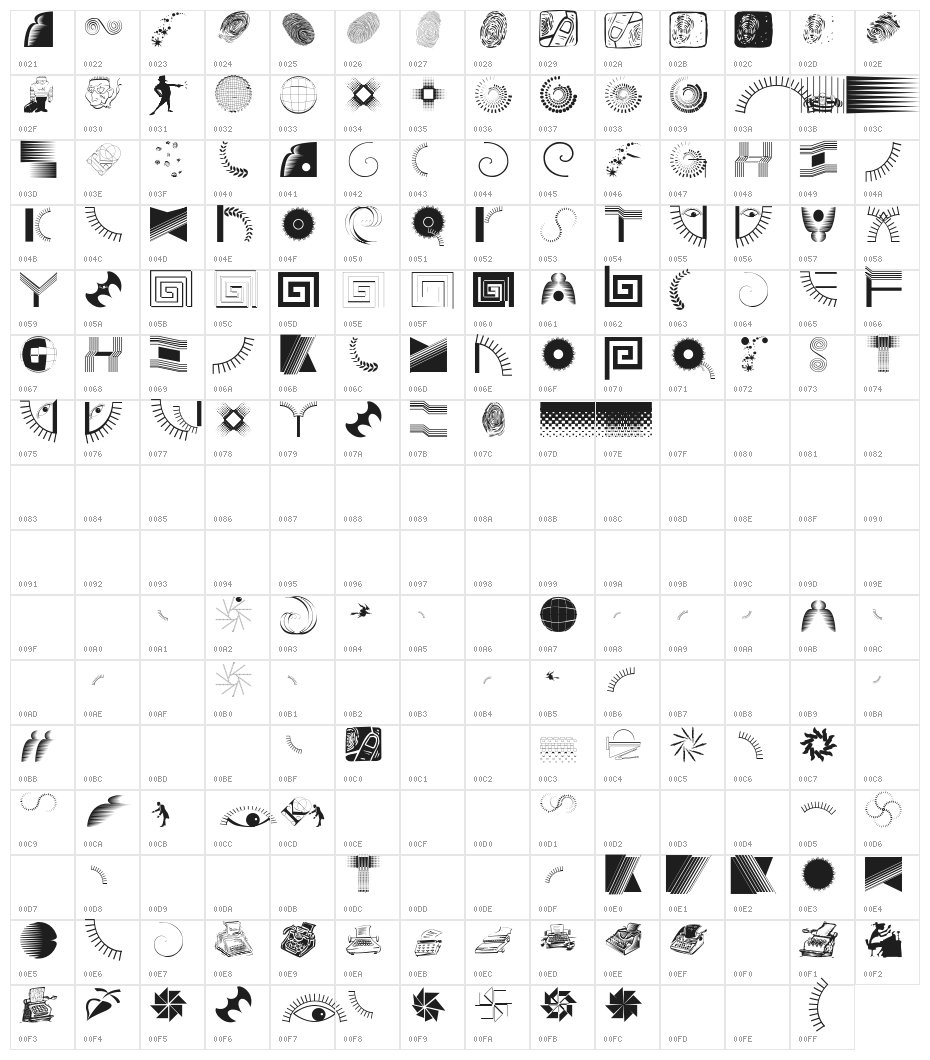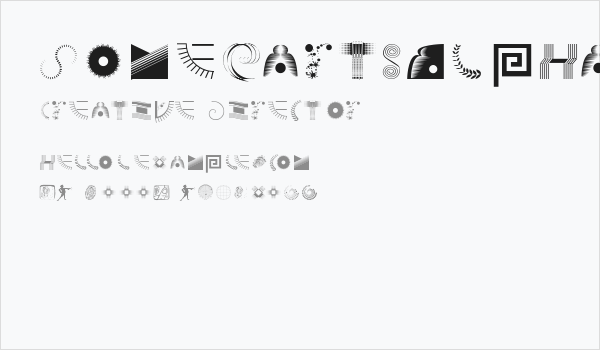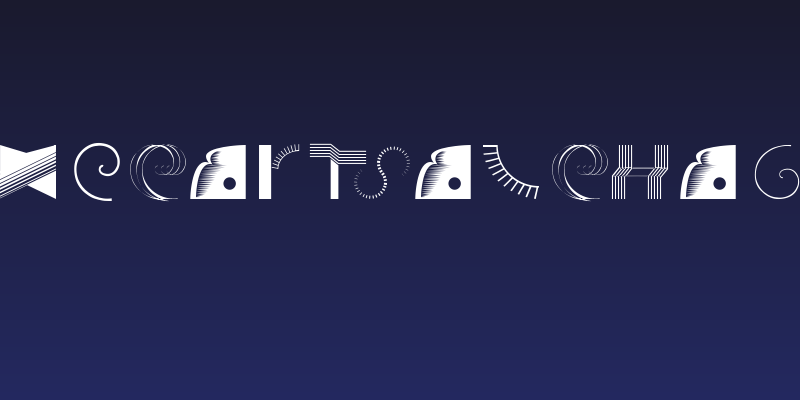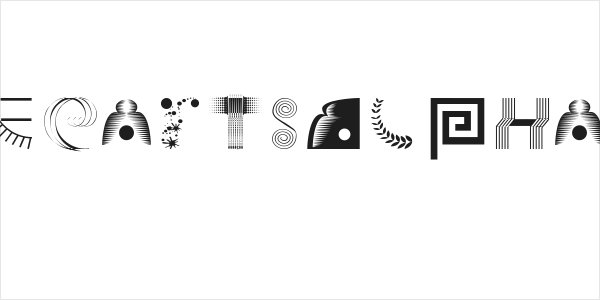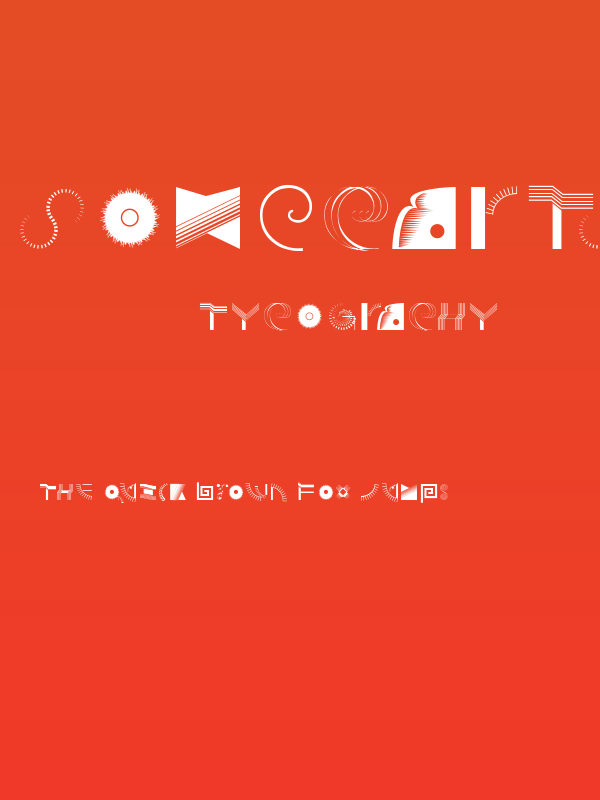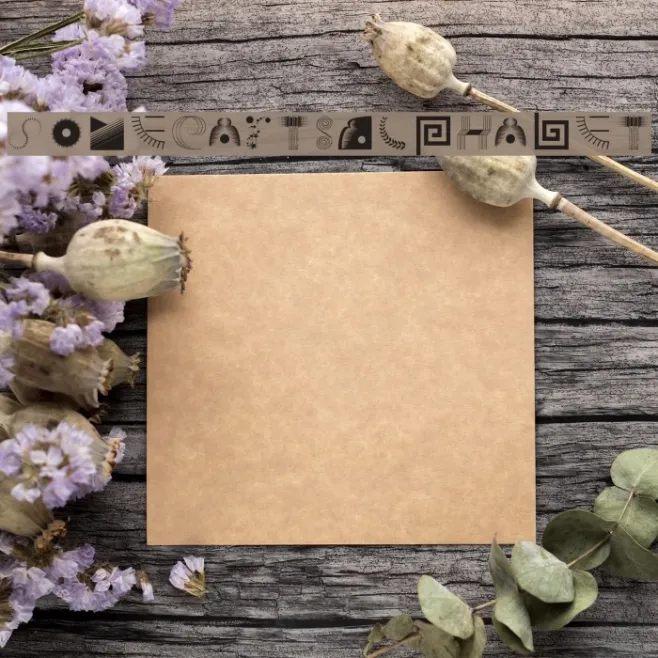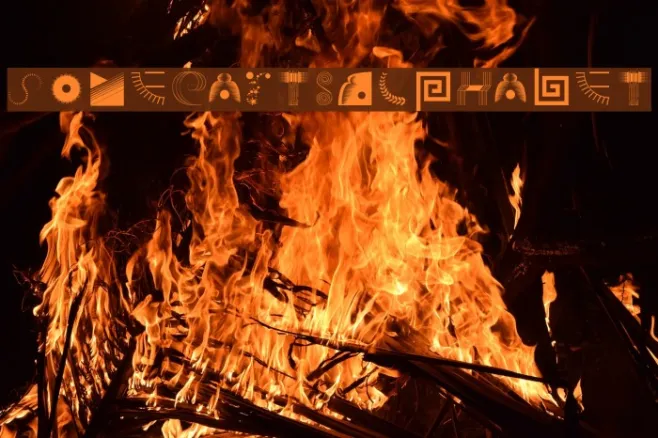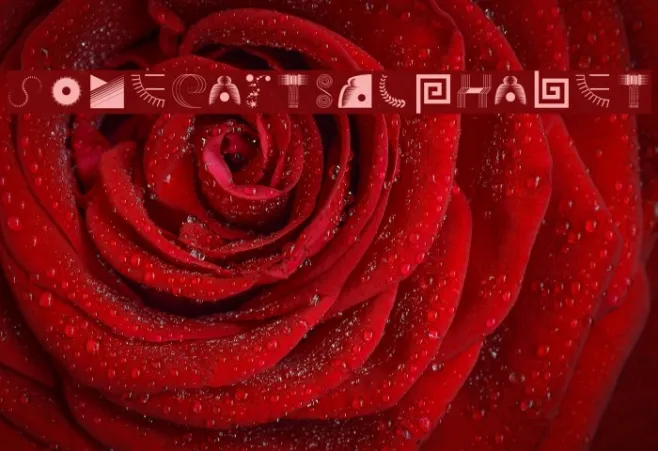
SomePartsAlphabet Font
SomePartsAlphabet Description
This font is a highly decorative and abstract collection of characters, each uniquely designed with intricate patterns and shapes. The letters and numbers are composed of various geometric forms, spirals, and artistic elements, making each character a standalone piece of art. The font features a mix of solid and dotted lines, with some characters incorporating eye motifs and other symbolic designs. The overall appearance is eclectic and visually striking, suitable for creative and unconventional projects.
| Proposed Projects | Ideal for artistic projects, posters, album covers, and any creative work that benefits from a bold, unconventional typeface. |